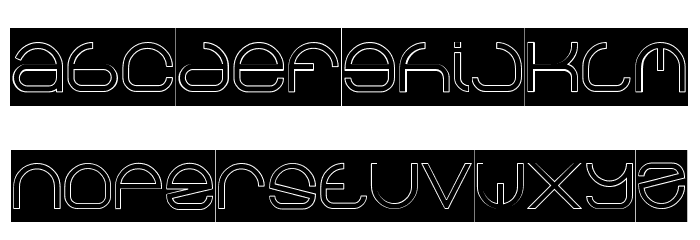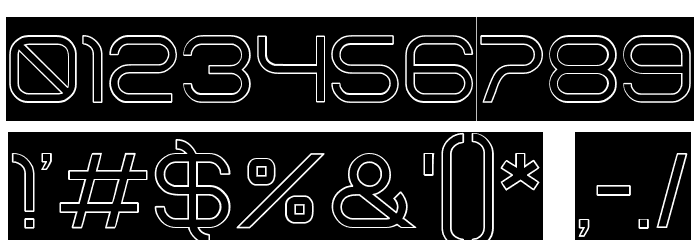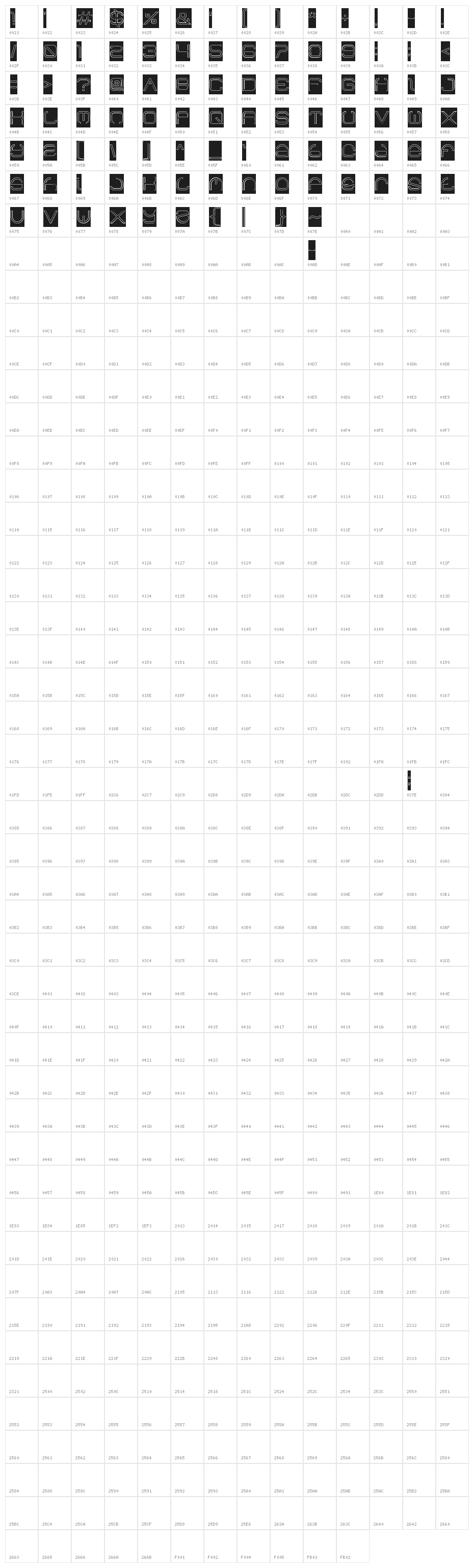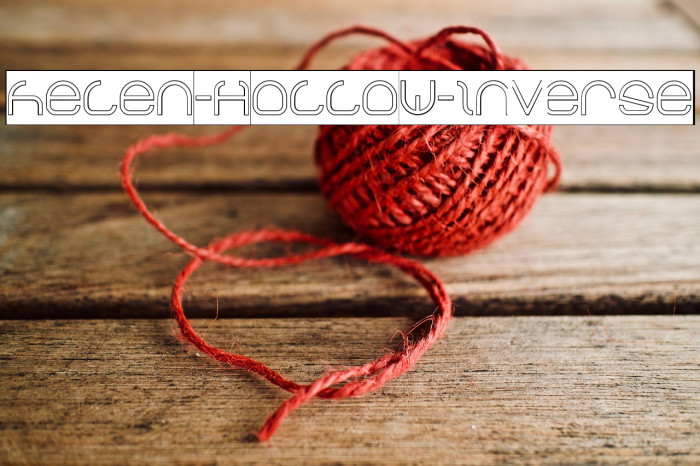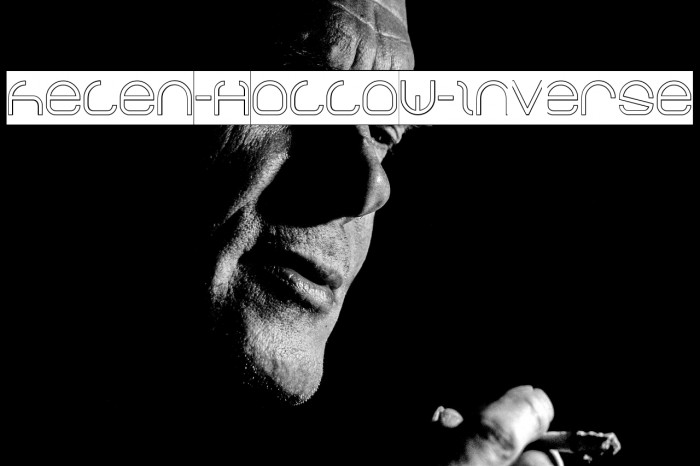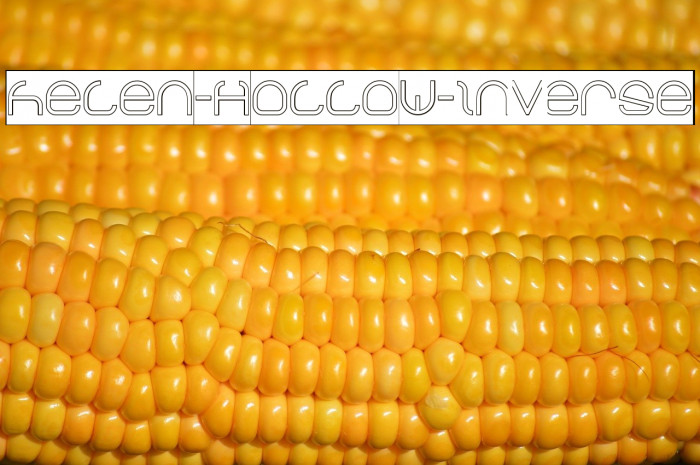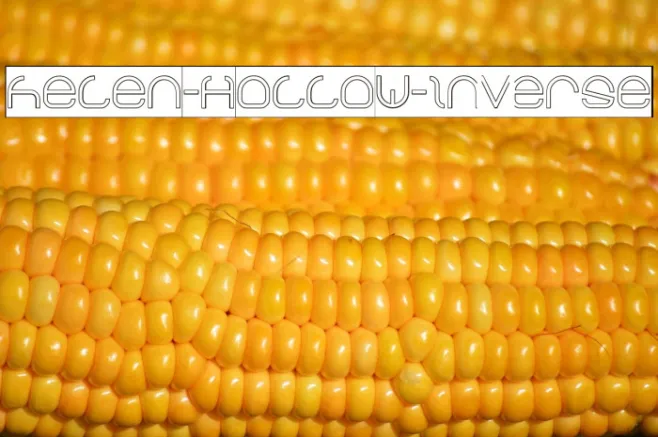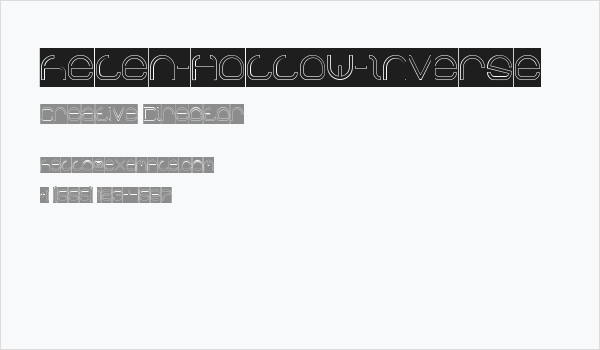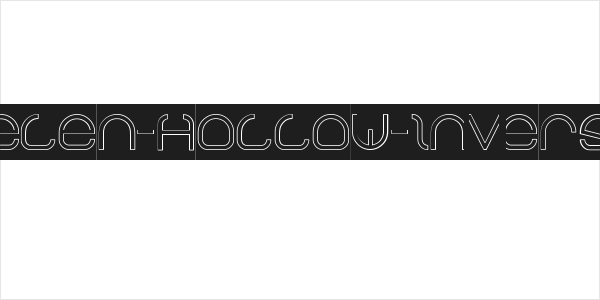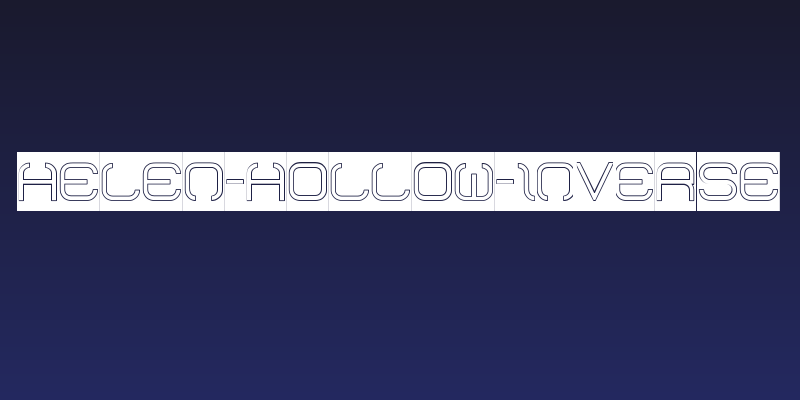
helen-Hollow-Inverse Font
This font features a unique hollow design with an inverse style, creating a striking visual effect. The characters are outlined with a consistent stroke width, giving them a futuristic and modern appearance. The uppercase and lowercase letters maintain a consistent geometric form, while the numbers and special characters follow the same design principles. The font's hollow nature makes it ideal for projects that require a bold statement without overwhelming the viewer. Its clean lines and symmetrical shapes contribute to its overall aesthetic, making it suitable for various creative applications.
A modern, hollow, inverse font with geometric and futuristic design.
- Proposed Projects: Ideal for futuristic branding, tech-related designs, posters, and digital media.
- Overall Style: Futuristic